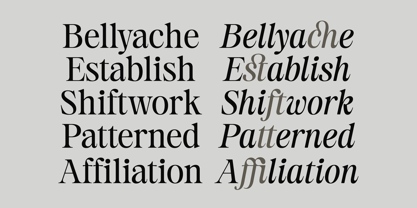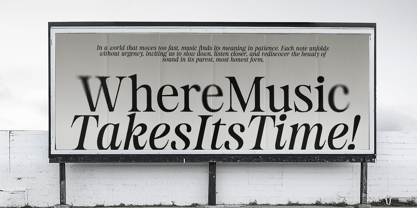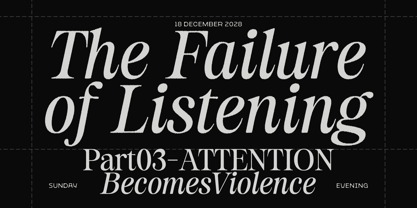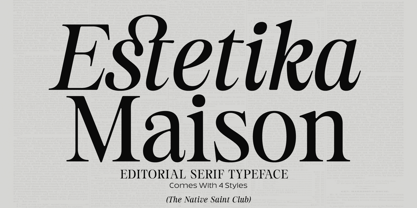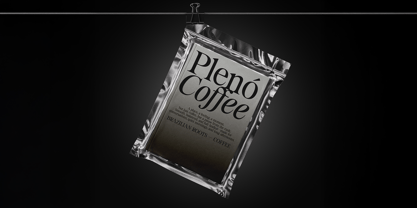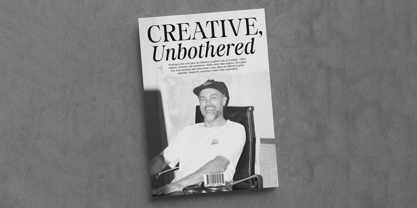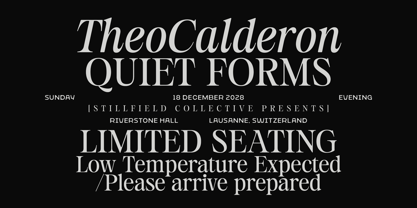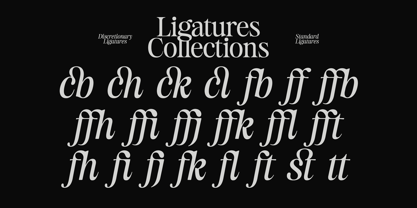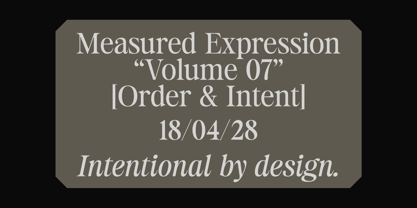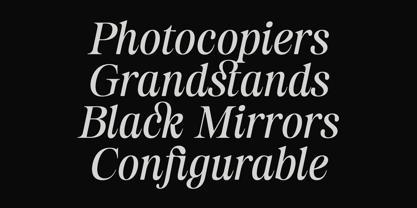
Estetika Maison
by The Native Saint Club
The Estetika Maison Font Family was designed by Bagas Ferdiansah, Septianto Nugroho and published by The Native Saint Club. Estetika Maison contains 4 styles and family package options. More about this family
Estetika Maison is a modern editorial serif inspired by the rise of retro aesthetics. Designed with strong contrast, refined details, and expressive italics, it delivers a nostalgic character while staying clean and elegant. Perfect for branding, logos, magazines, packaging, headlines, and sophisticated layouts, Estetika Maison helps create work that feels timeless without looking outdated. With 4 styles included, it gives you the flexibility to design confidently while keeping a cohesive, high-end appearance.
Designers: Bagas Ferdiansah, Septianto Nugroho
Foundry: The Native Saint Club